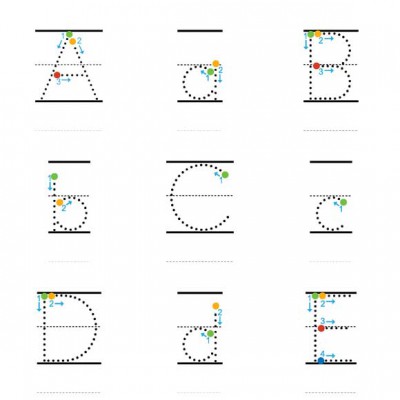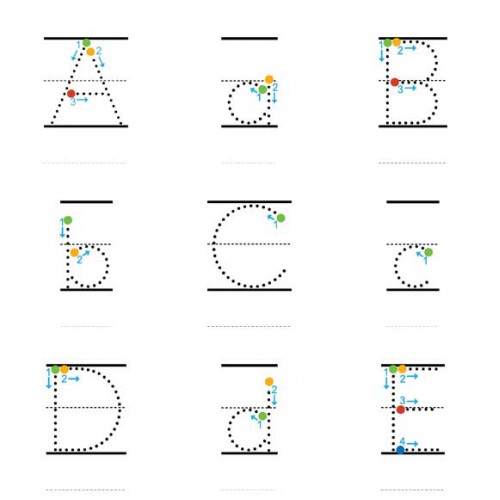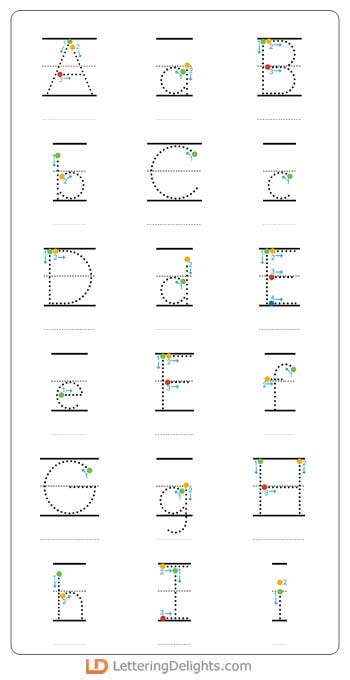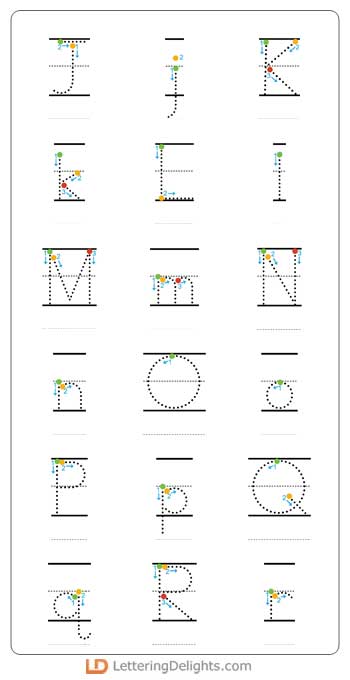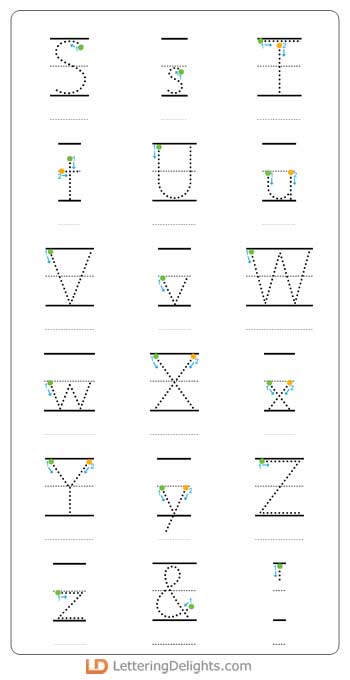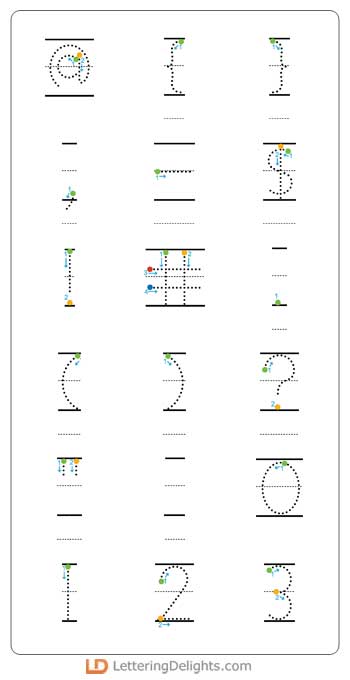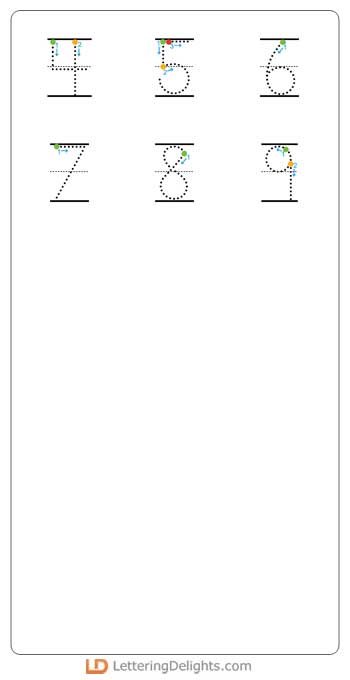
Primer Print - Go Dots Numbers - AL
This traditional print font has circle/rings and numbers on each letter to show starting points of where a student places pencil then follows the path of dots to complete each letter. This alphabet has it's own color font that you can use in programs that allow for color fonts. Please note color fonts will show as black in non compatible programs. This font type is compatible with all Adobe products, Affinity Suite, Procreate, CorelDraw, Inkscape, Canva, Apple iWork, QuarkXPress, Word and PowerPoint (versions 2016/2019 and later), Silhouette Studio, Windows 10+ and macOs/iOS web browsers.